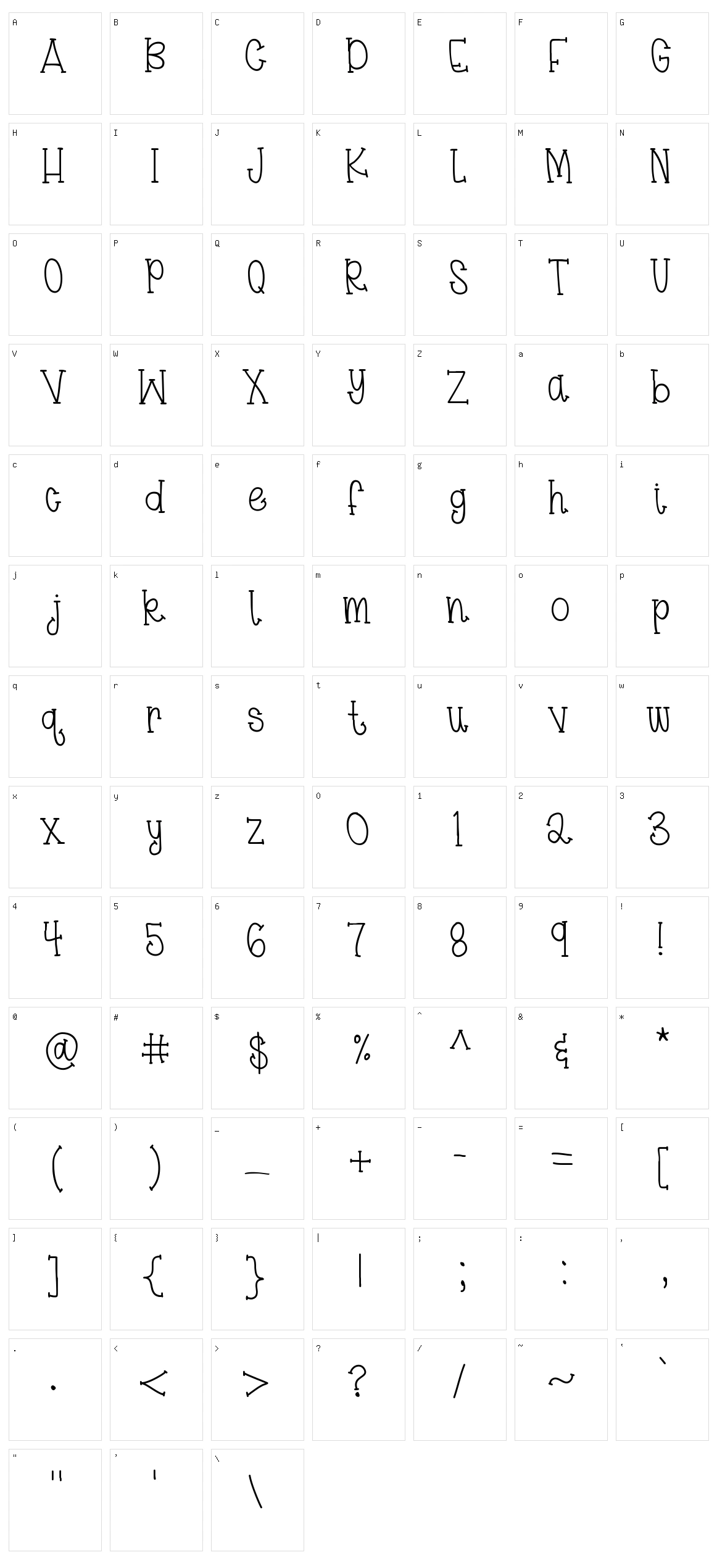
The free font Coffee And Macaroons is carefully designed by Dez C, showcasing a thoughtful balance of creativity and usability and falls under the Cartoon font style. When you download the ZIP file, it contains only 44.69 KB of font files, making it lightweight and quick to download. Please review the license details below to understand permitted usage and distribution rights. If license information is not available, we recommend using this font for personal projects only or contacting the author directly for commercial usage permissions.